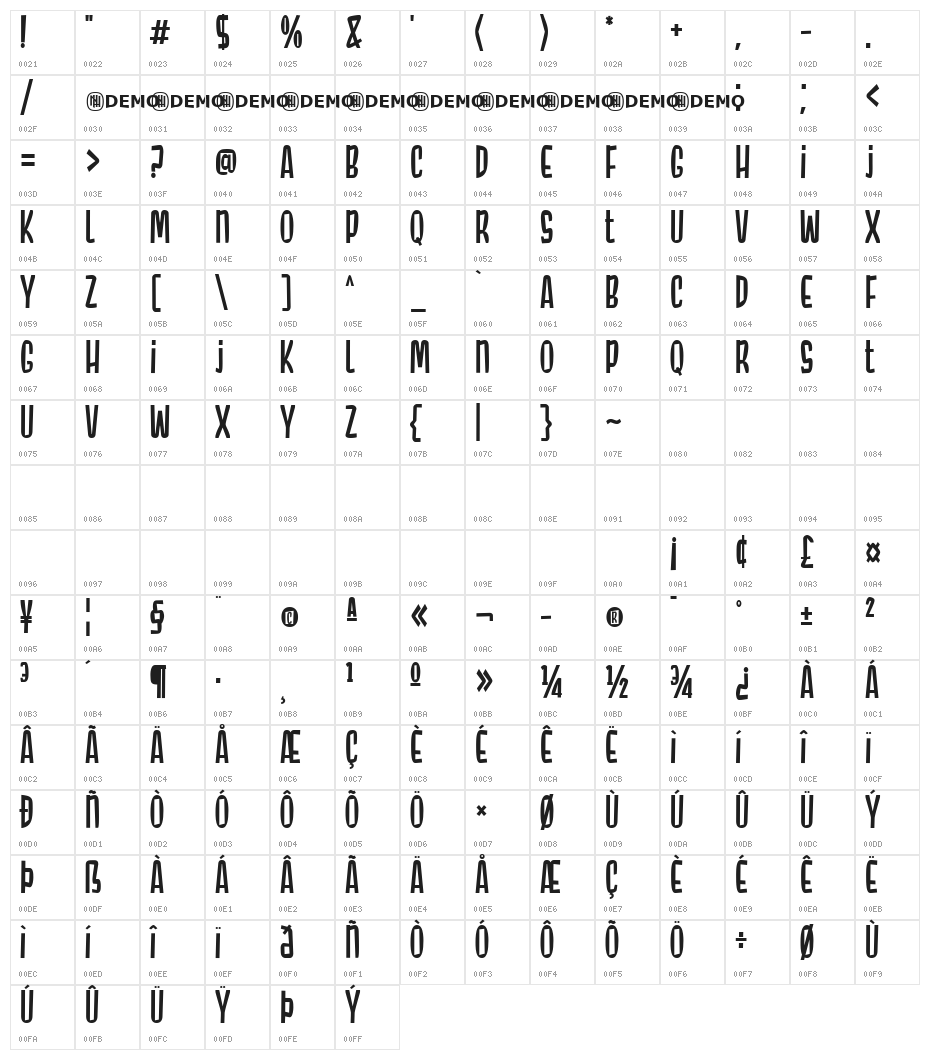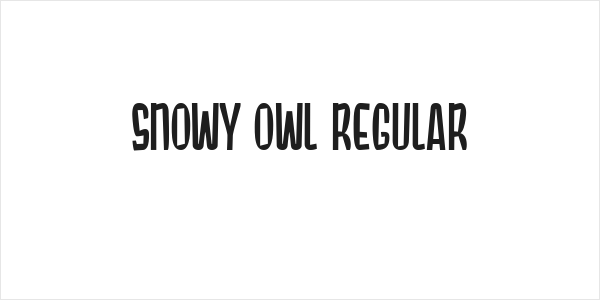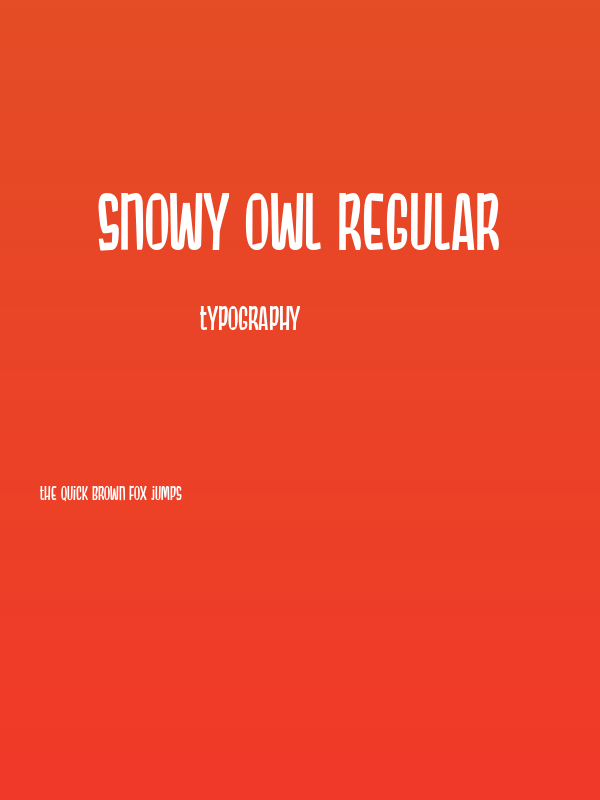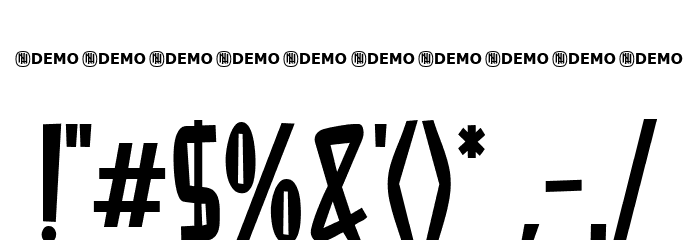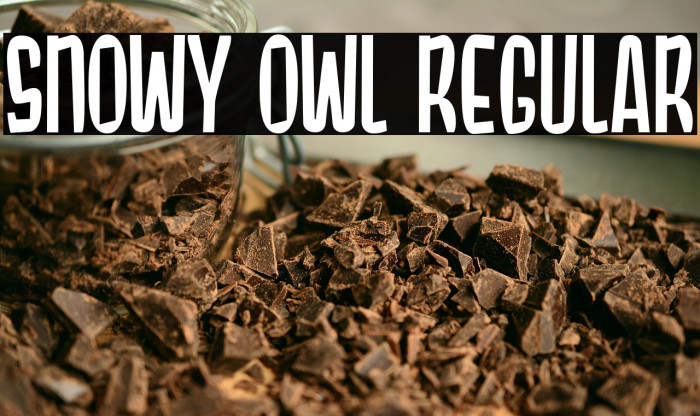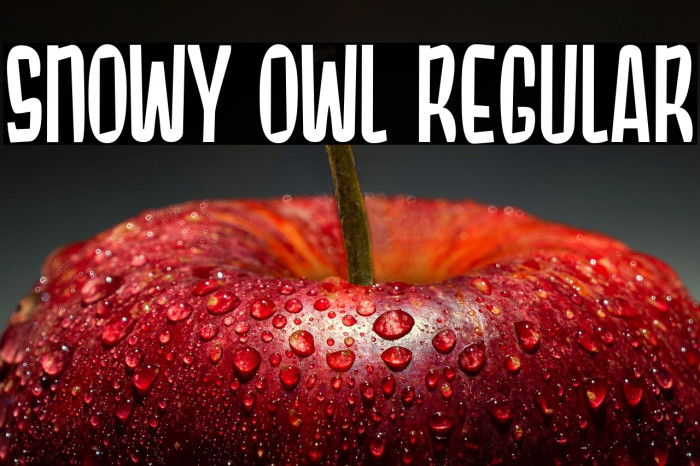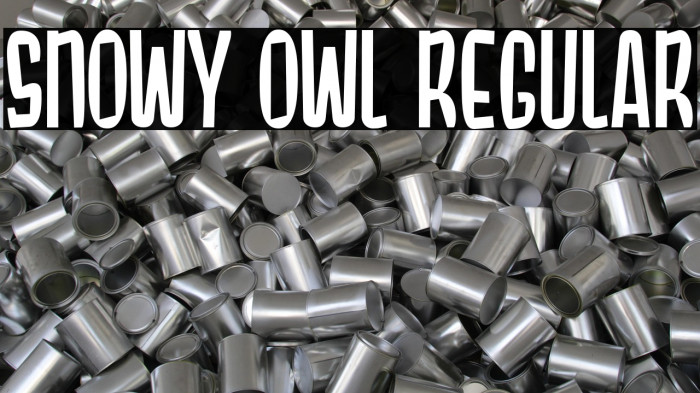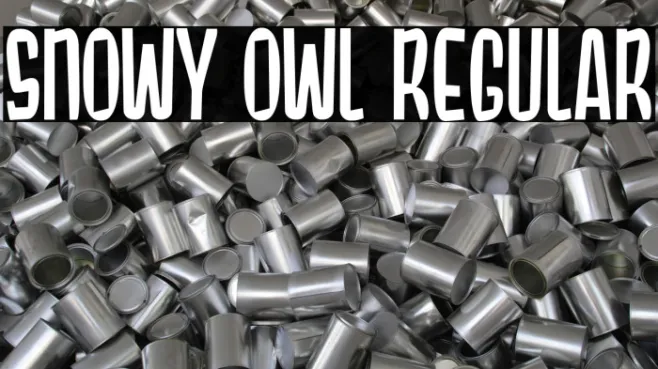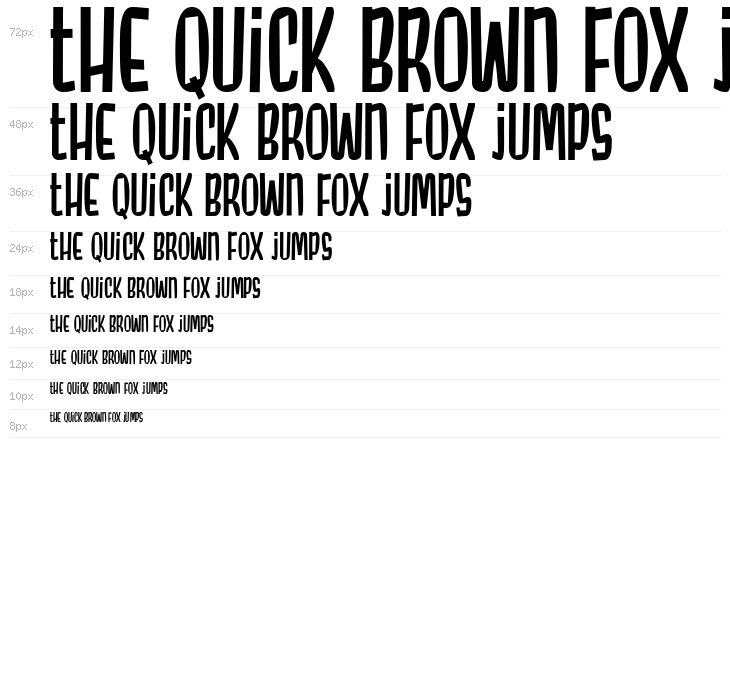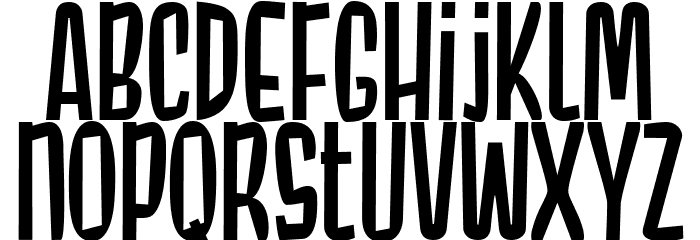
Snowy Owl Regular Font
Snowy Owl Regular Description
This font features a bold and playful design with a slightly irregular and hand-drawn appearance. The characters are tall and narrow, giving them a condensed look, while maintaining a whimsical and informal style. The strokes are thick and consistent, creating a strong visual impact. The uppercase and lowercase letters share similar characteristics, with a quirky and artistic flair. The numbers and special characters are designed to match the overall playful theme, making this font suitable for creative and fun projects.
| Overall Style | Playful, Artistic |
| Proposed Projects | Ideal for children's books, playful branding, posters, and creative invitations. |